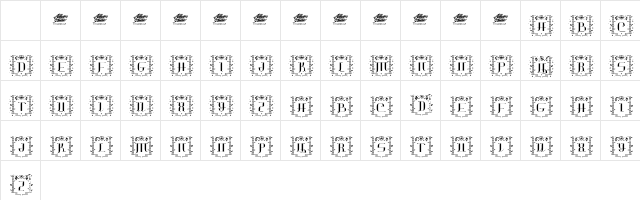
Complete Jianshi Chinese Monogram Regular glyph index. Displaying only characters natively supported by Jianshi Chinese Monogram Regular font.
Jianshi Chinese Monogram uses fixed-width spacing throughout, giving it the structured, systematic character associated with coding environments and technical documentation.